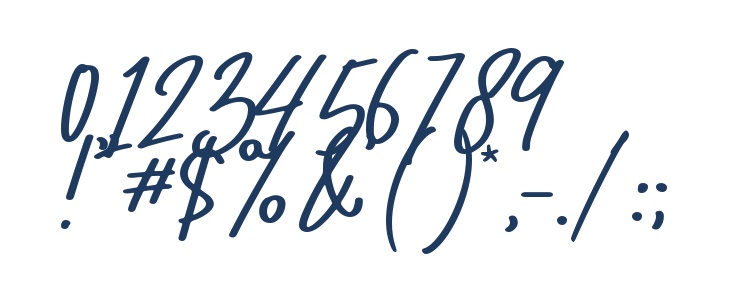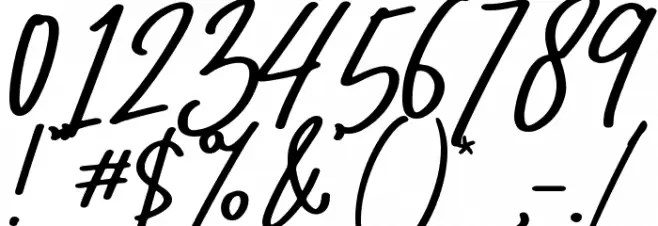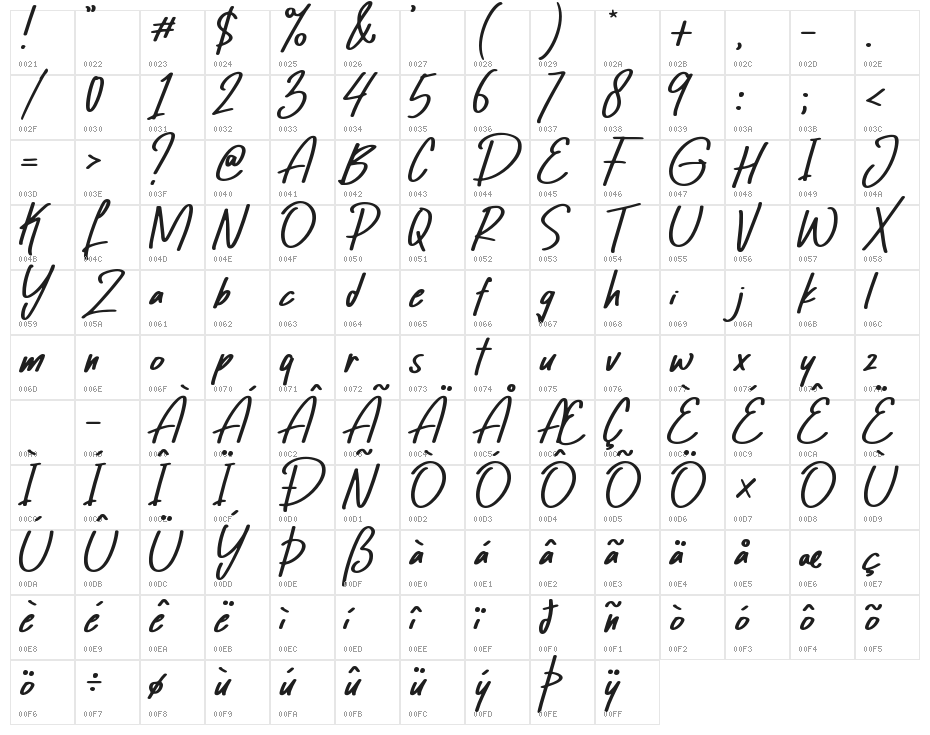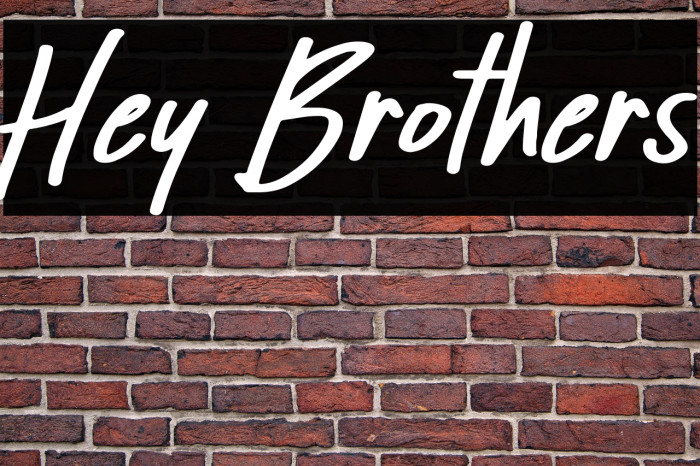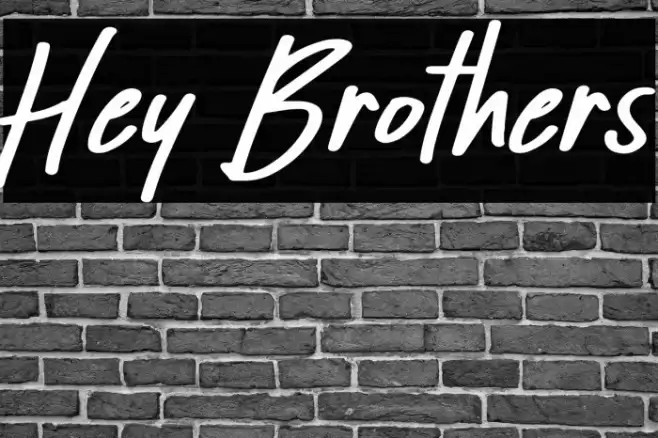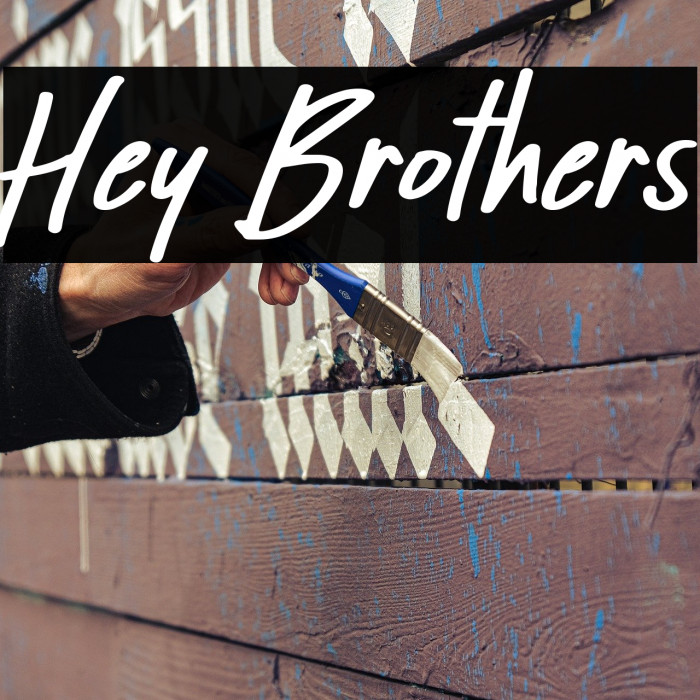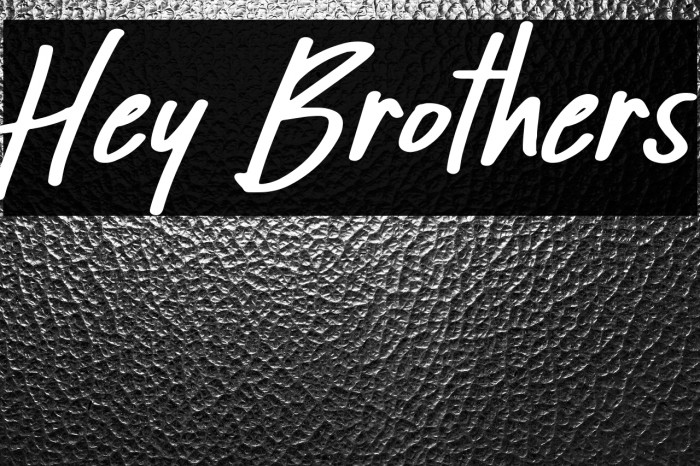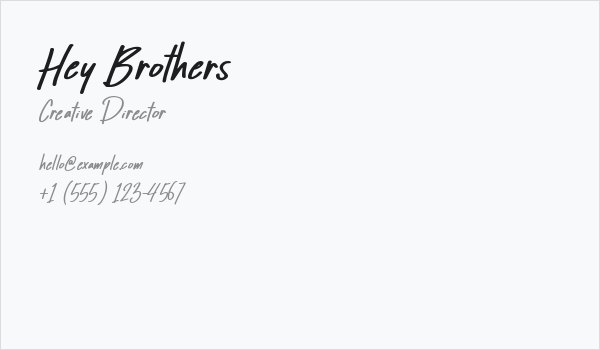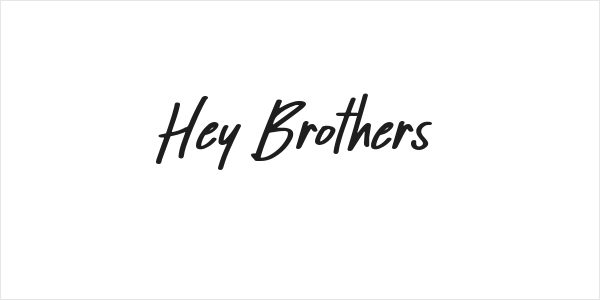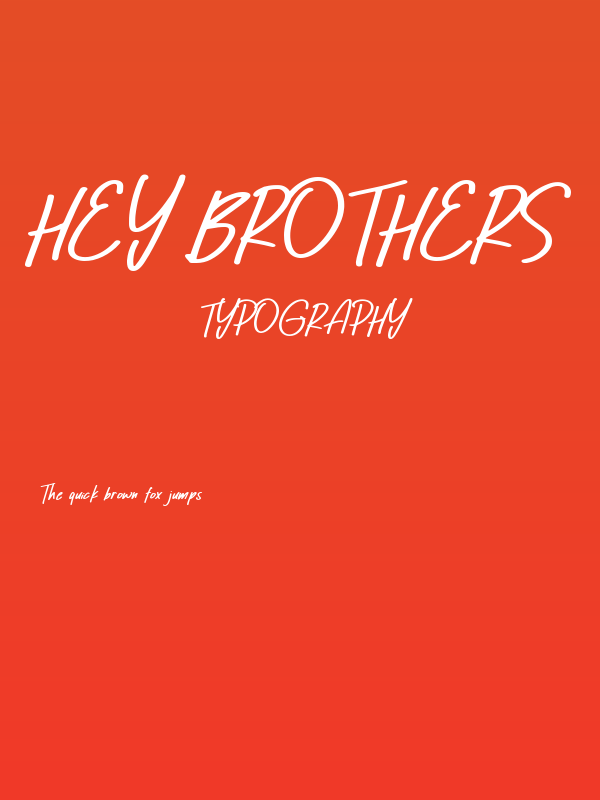
Hey Brothers Font
Hey Brothers Description
This font exudes a dynamic and energetic vibe with its bold, handwritten style. The letters are crafted with a fluid, cursive touch, giving them a personal and informal feel. The uppercase characters maintain a consistent height, while the lowercase letters exhibit a playful variation in size, adding to the font's lively character. The numerals are equally expressive, matching the overall aesthetic with their bold strokes. Special characters are seamlessly integrated, maintaining the font's cohesive look. This font is perfect for projects that require a personal touch, such as invitations, greeting cards, or branding materials.